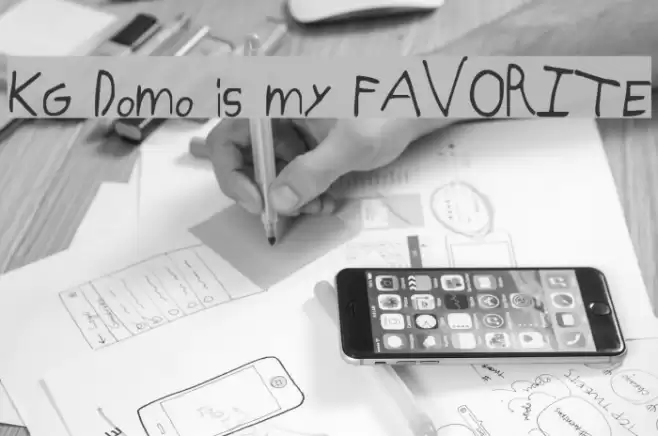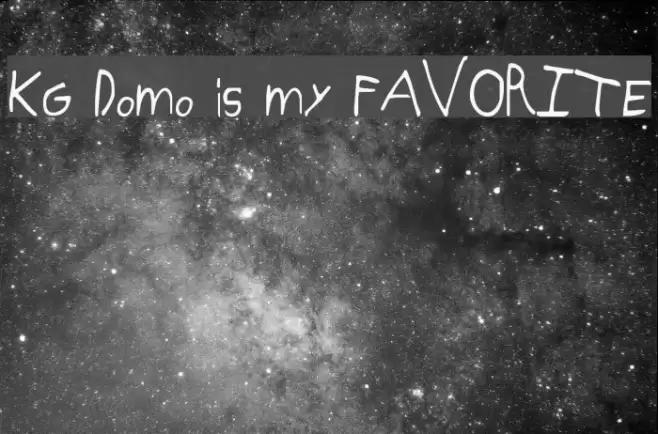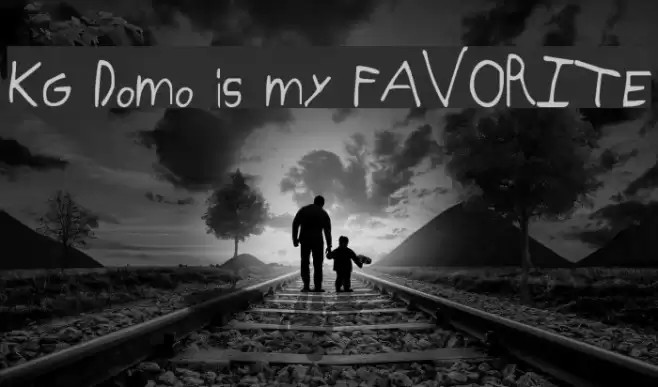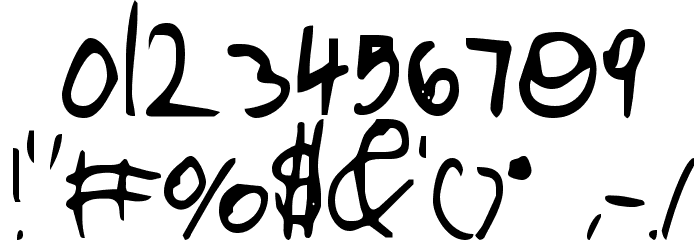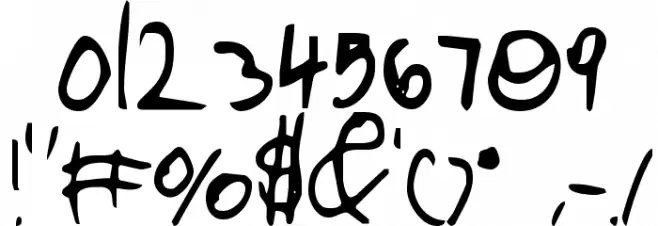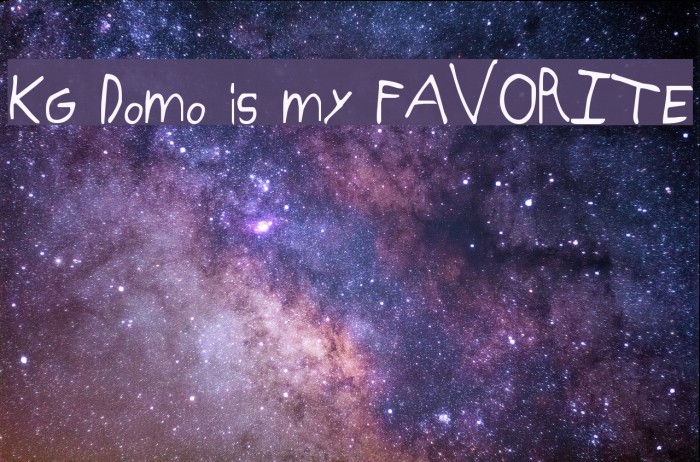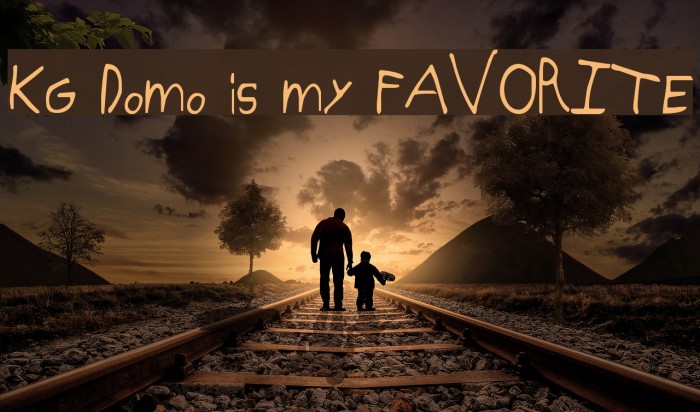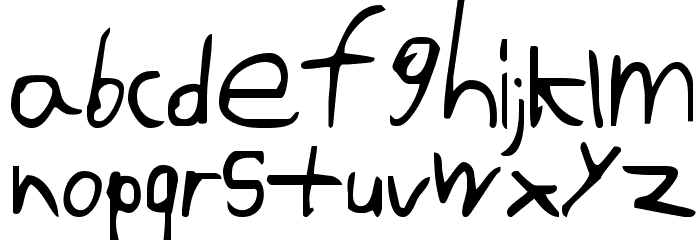
KG Domo is my FAVORITE Font
KG Domo is my FAVORITE Description
This font features a playful and informal handwritten style, characterized by its irregular and dynamic strokes. The uppercase letters are tall and slightly narrow, with a whimsical flair that adds personality to each character. The lowercase letters maintain a consistent flow, with some letters like 'e' and 'g' having unique loops that enhance the font's quirky nature. The numerals are bold and distinct, ensuring readability while maintaining the font's overall casual aesthetic. Special characters are creatively designed, complementing the font's lively and energetic vibe. This font is perfect for projects that require a personal touch or a fun, informal appearance.
A playful, informal handwritten font with dynamic strokes and quirky character designs from Handwritten fonts.
- Proposed Projects: Ideal for children's books, greeting cards, playful branding, and casual invitations.
- Overall Style: Casual, Playful
- Use Case: Headlines, Informal text, Creative projects